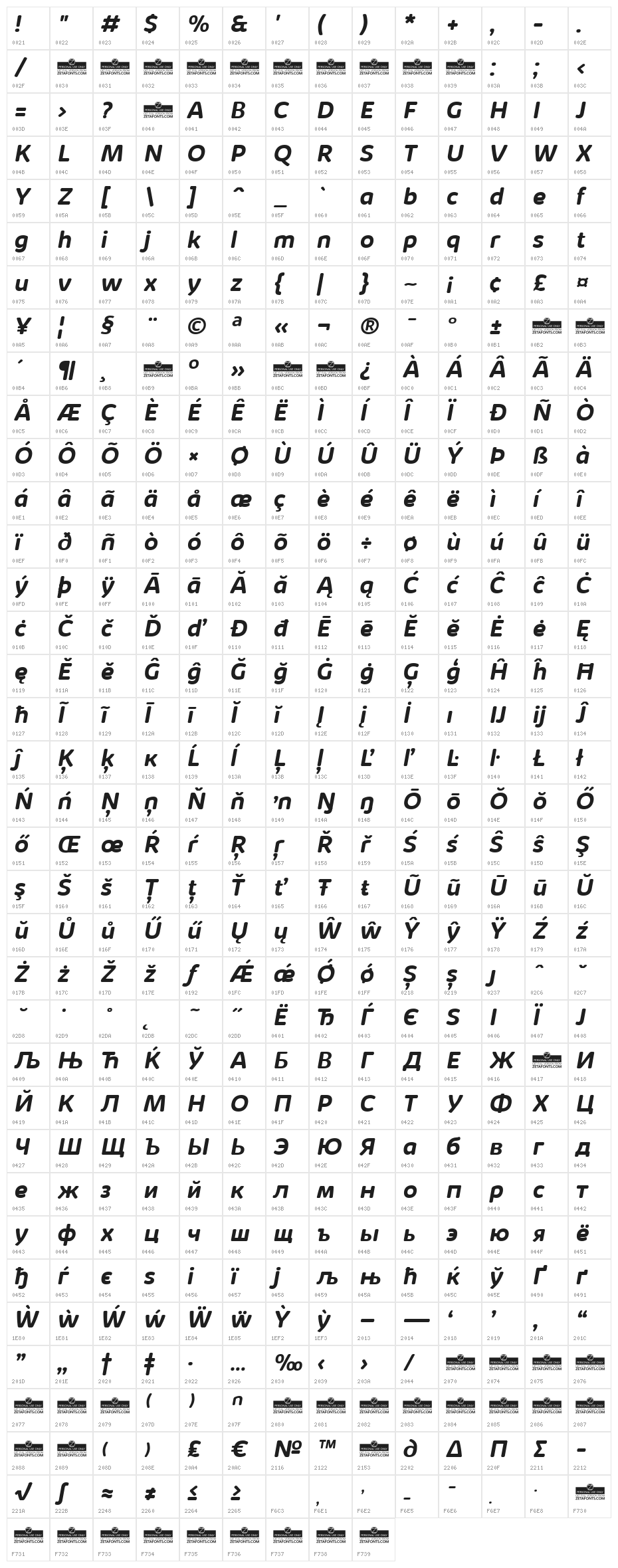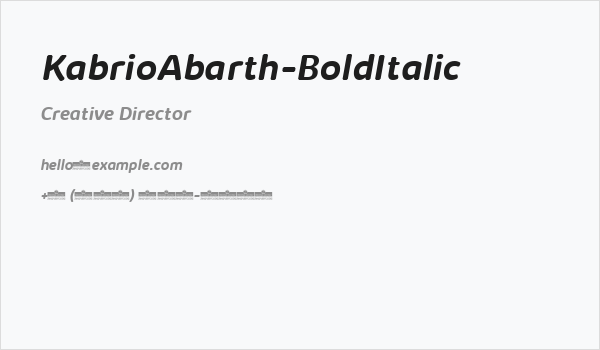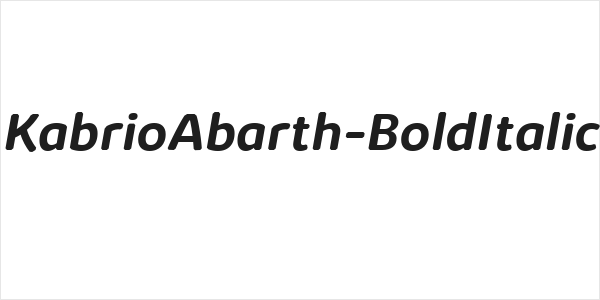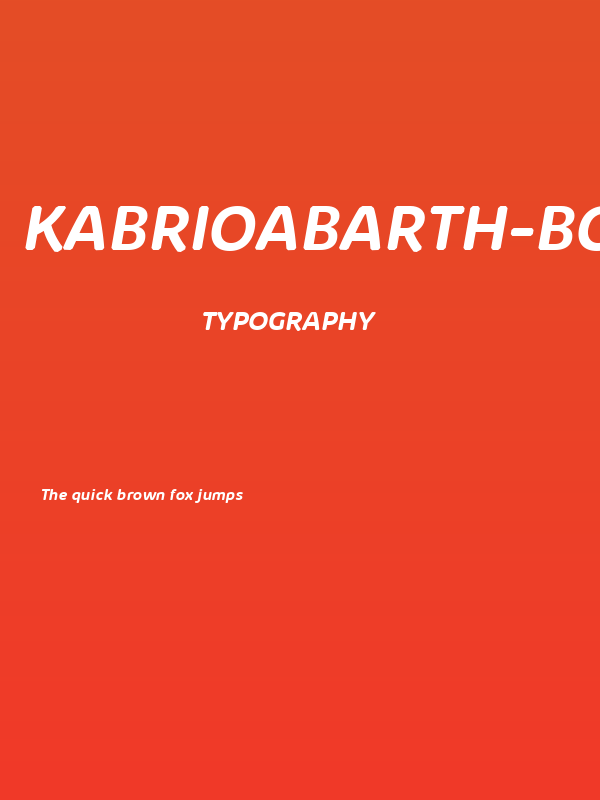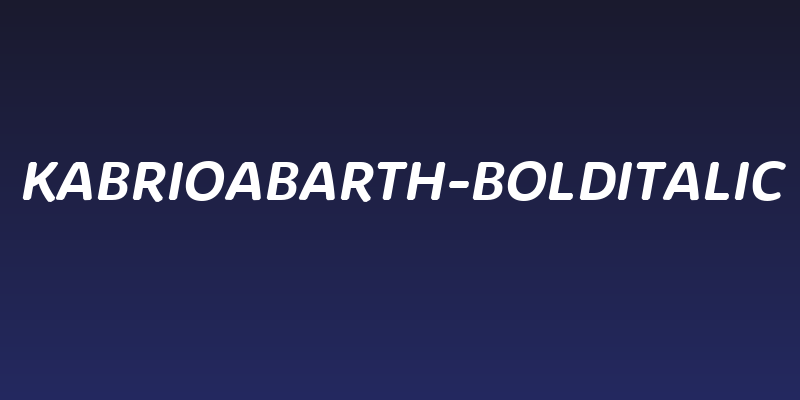
KabrioAbarth-BoldItalic Font
KabrioAbarth-BoldItalic Description
This font features a bold and italicized style with smooth, rounded edges that give it a modern and approachable appearance. The characters are slightly slanted, adding a dynamic and energetic feel. The uppercase and lowercase letters maintain a consistent style, ensuring readability and uniformity. The numbers and special characters are designed to match the overall aesthetic, making them suitable for various applications. The font's design is clean and versatile, making it ideal for both digital and print media.
| Proposed Projects | Ideal for branding, advertising, headlines, and digital content where a modern and dynamic look is desired. |